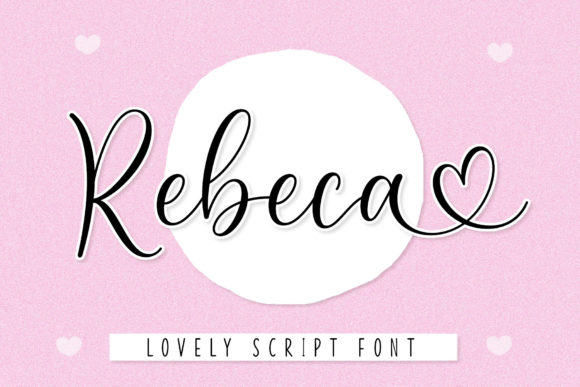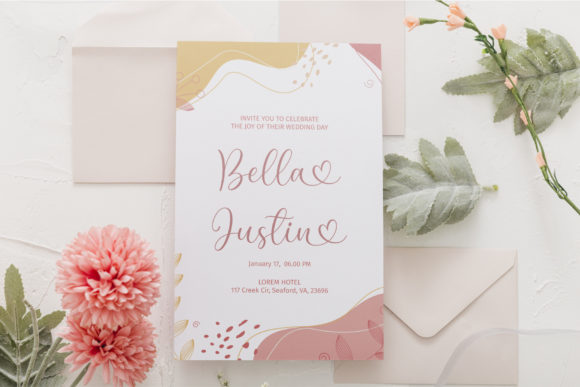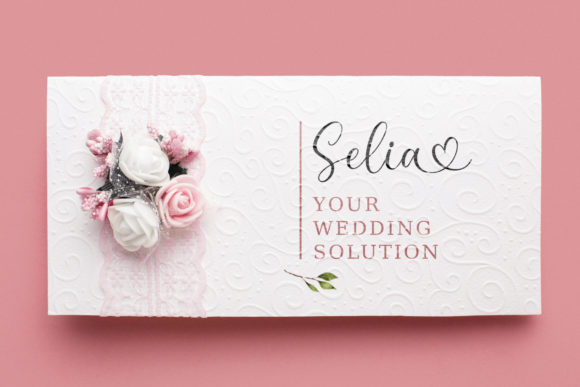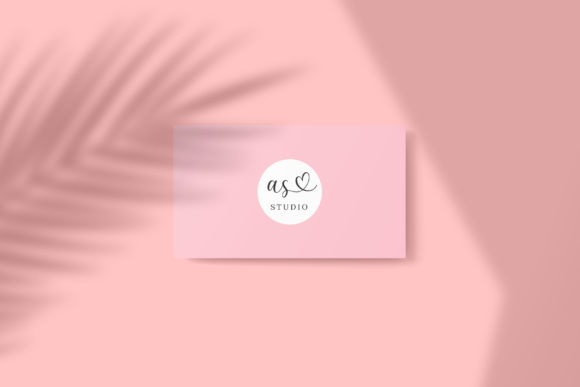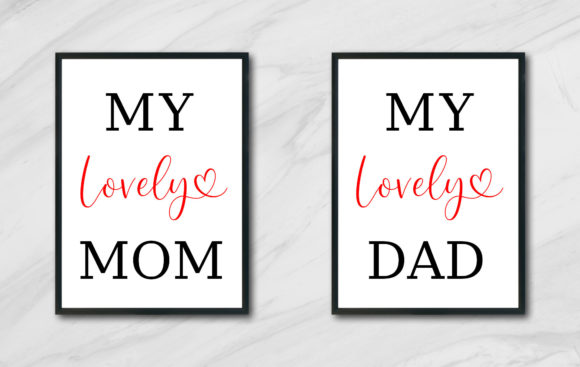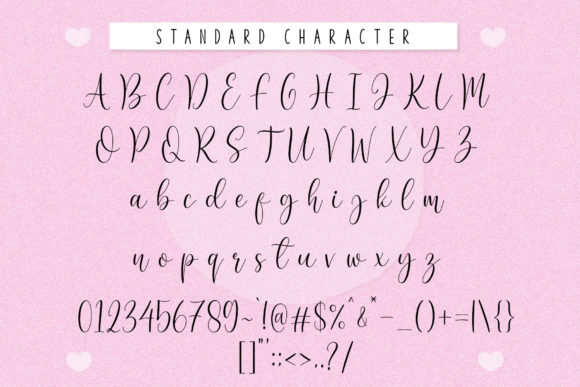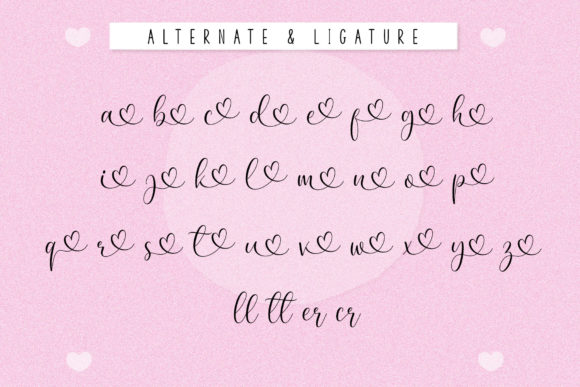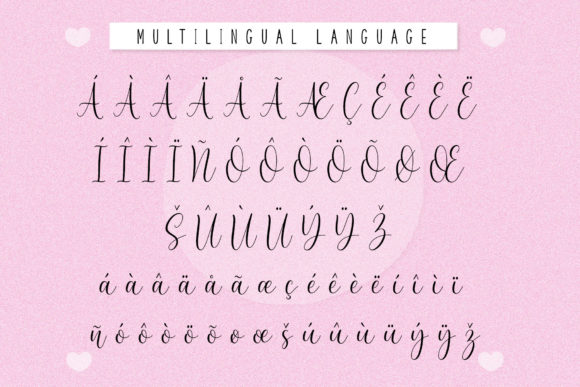
Rebeca Font
About Rebeca Font
Rebeca is a stunning and sophisticated script font that exudes elegance and refinement. With its chic design and stylish alternates, this font is the perfect choice for a wide range of projects, from branding and logos to invitations, packaging, and more.
The flowing and graceful letterforms of Rebeca give it a timeless and classy look. Each letter is carefully crafted to create a harmonious and balanced appearance, making it ideal for creating eye-catching and memorable designs. Whether you’re designing a wedding invitation or a luxury brand logo, Rebeca will elevate your project with its elegant touch.
One of the standout features of Rebeca is its extensive set of alternates and ligatures. These additional characters provide you with endless possibilities for customization and creativity. You can easily access these glyphs and swashes through PUA encoding, allowing you to add stylish flourishes, decorative elements, and unique letter combinations to your designs.
The versatility of Rebeca is evident in its ability to adapt to different design styles and themes. It can effortlessly convey both modern sophistication and vintage charm, making it suitable for a variety of projects. From minimalist and clean designs to ornate and elaborate compositions, Rebeca shines in any context.
Furthermore, the smooth and fluid lines of Rebeca create a sense of elegance and movement. This adds a dynamic and captivating element to your typography, drawing the viewer’s attention and creating a visually pleasing experience. The legibility of Rebeca ensures that your message is conveyed clearly, while still maintaining its stylish and refined aesthetic.
Whether you’re designing for print or digital media, Rebeca will make your projects stand out. Its clean and well-balanced letterforms make it highly readable even at smaller sizes, ensuring that your design retains its impact across various platforms.
In summary, Rebeca is a chic and refined script font that exudes sophistication and elegance. With its stylish alternates and ligatures, it offers a wide range of design possibilities. Accessible through PUA encoding, Rebeca allows you to effortlessly enhance your projects with beautiful swashes, glyphs, and unique letter combinations. Choose Rebeca to bring a touch of timeless elegance to your designs and make a lasting impression on your audience.